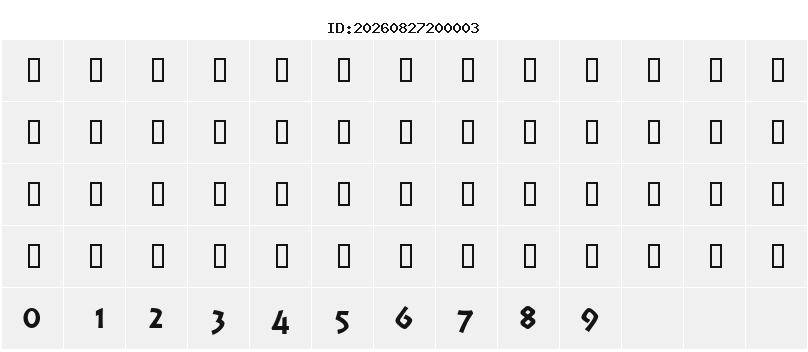
• Font Name: Tzipora
About Tzipora.ttf
Tzipora.ttf is a modern, elegant sans-serif font designed for ultimate readability and visual harmony. Perfect for branding, headlines, web design, and print materials.